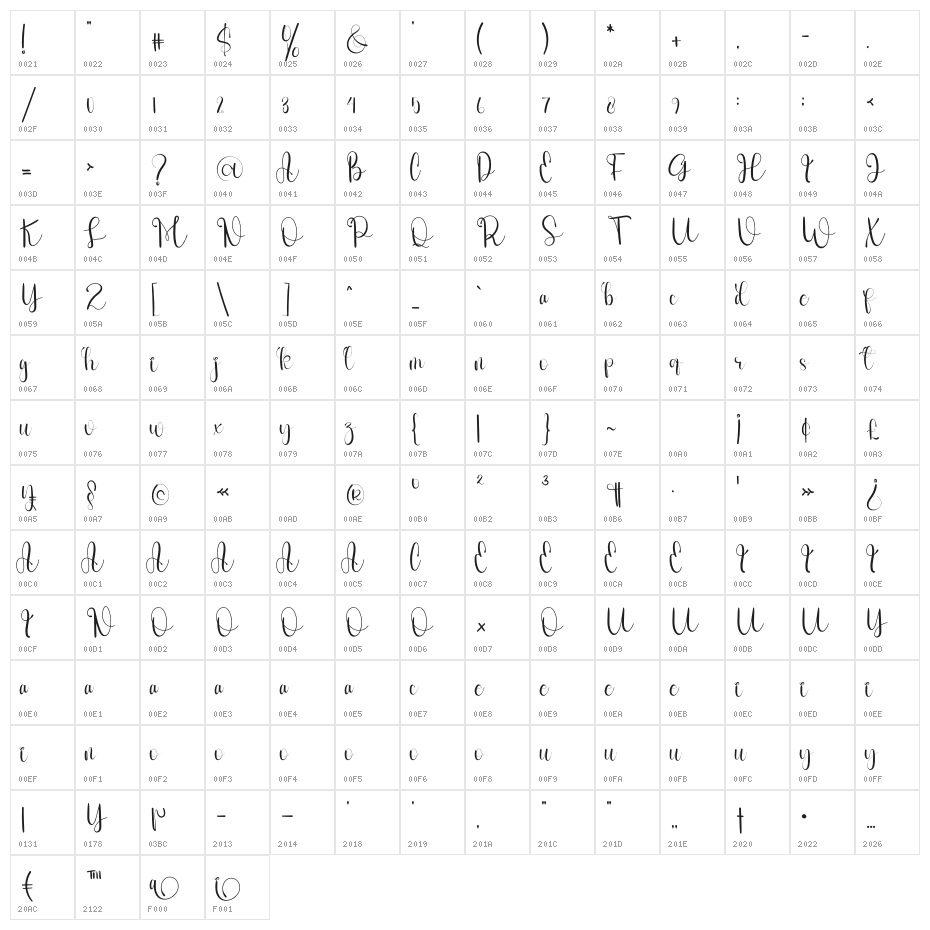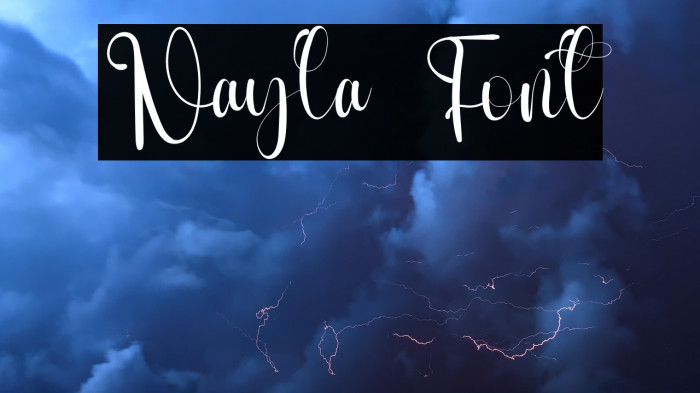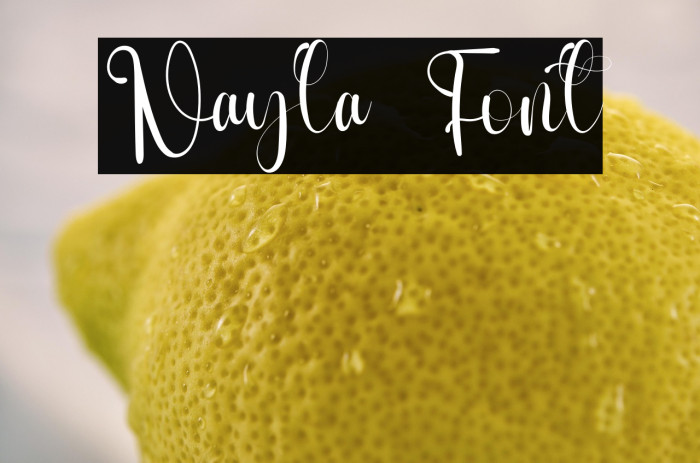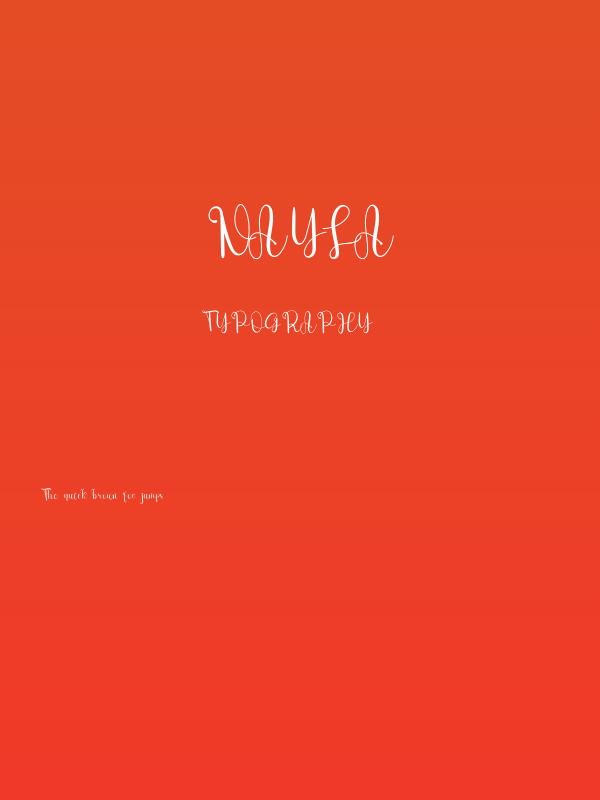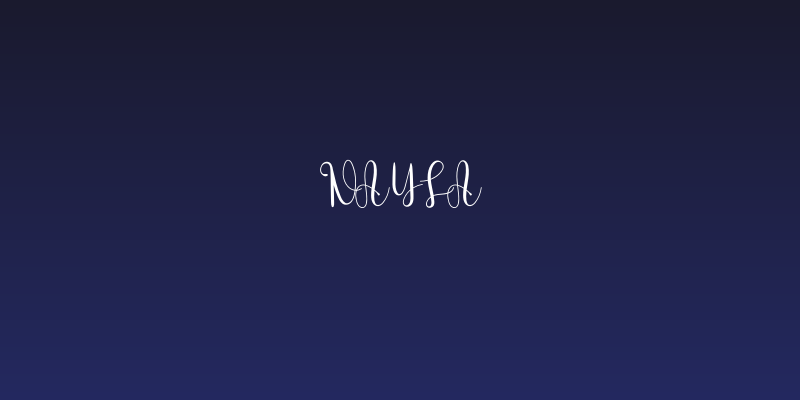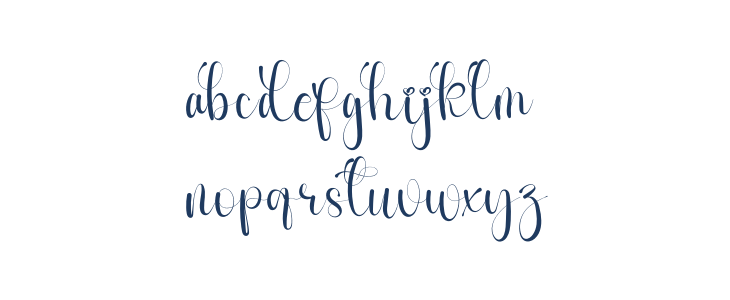
Nayla Font
Nayla Description
This elegant script font features a flowing, cursive style with intricate loops and swashes, giving it a sophisticated and artistic appearance. The uppercase letters are bold and decorative, while the lowercase letters maintain a graceful continuity. The numerals and special characters are designed with the same fluidity, ensuring a cohesive look across all text. The font's high contrast between thick and thin strokes adds to its dramatic flair, making it suitable for creative and expressive designs.
| Proposed Projects | Ideal for wedding invitations, greeting cards, branding, and logo design where a touch of elegance and sophistication is desired. |